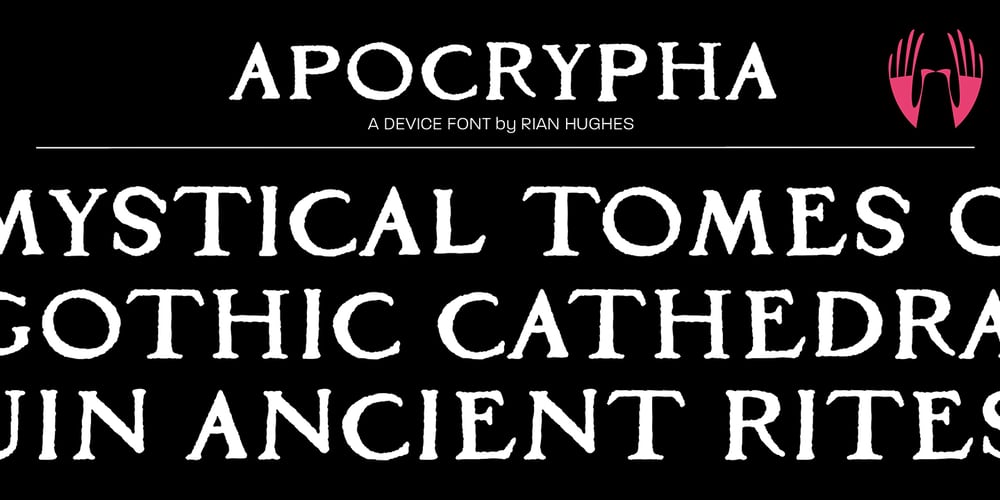
Apocrypha Font Family was designed by Rian Hughes and published by Device. Apocrypha contains 1 styles and family package options. Inspired by an example of eroded Portuguese cast-iron ecclesiastical lettering mounted on marble, Apocrypha has been designed to evoke an age-worn imperfection; once elegant, but now eroded and distorted by time. Mix the characters in the upper and lower-case keystrokes for authentically uneven results.